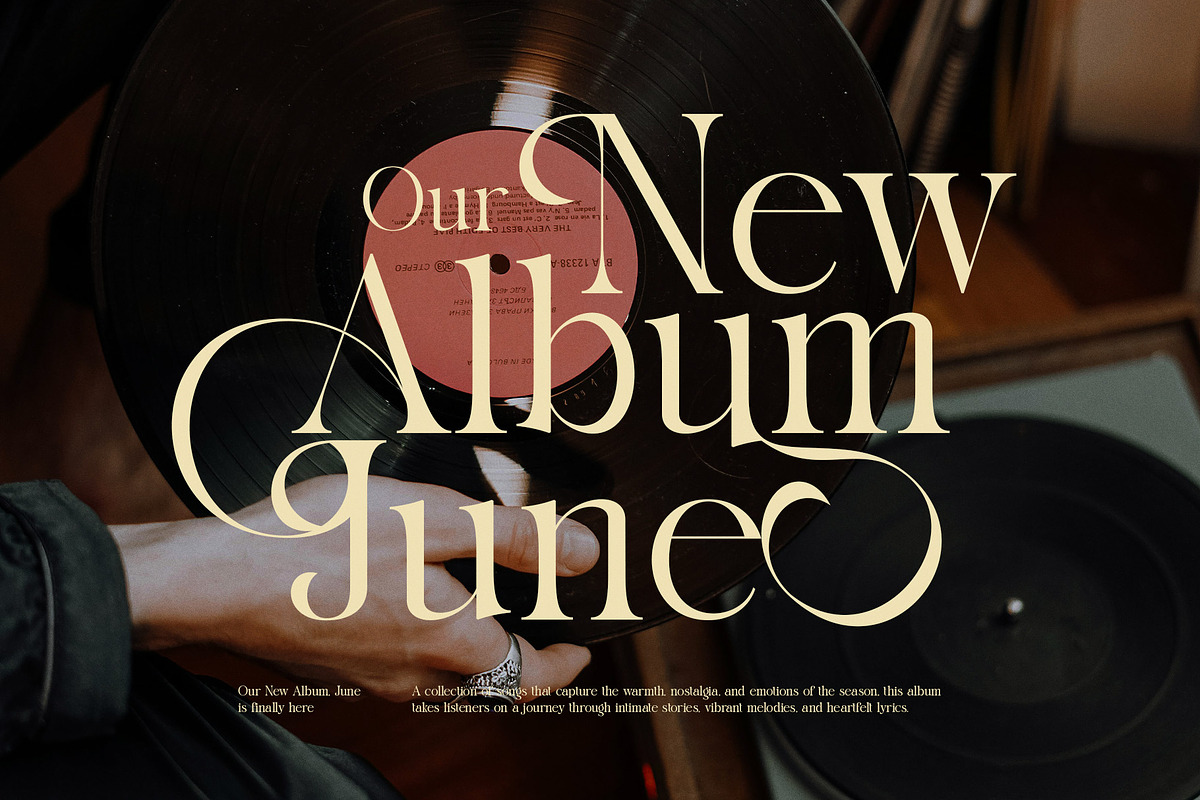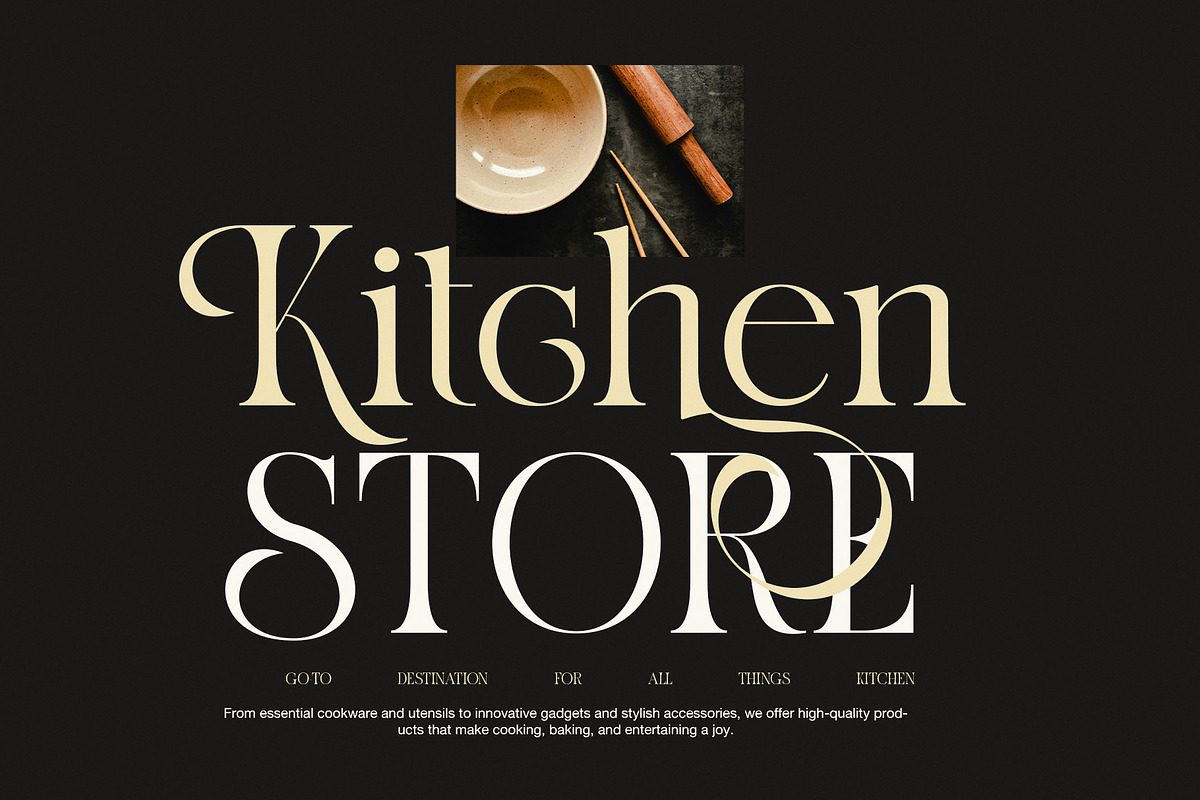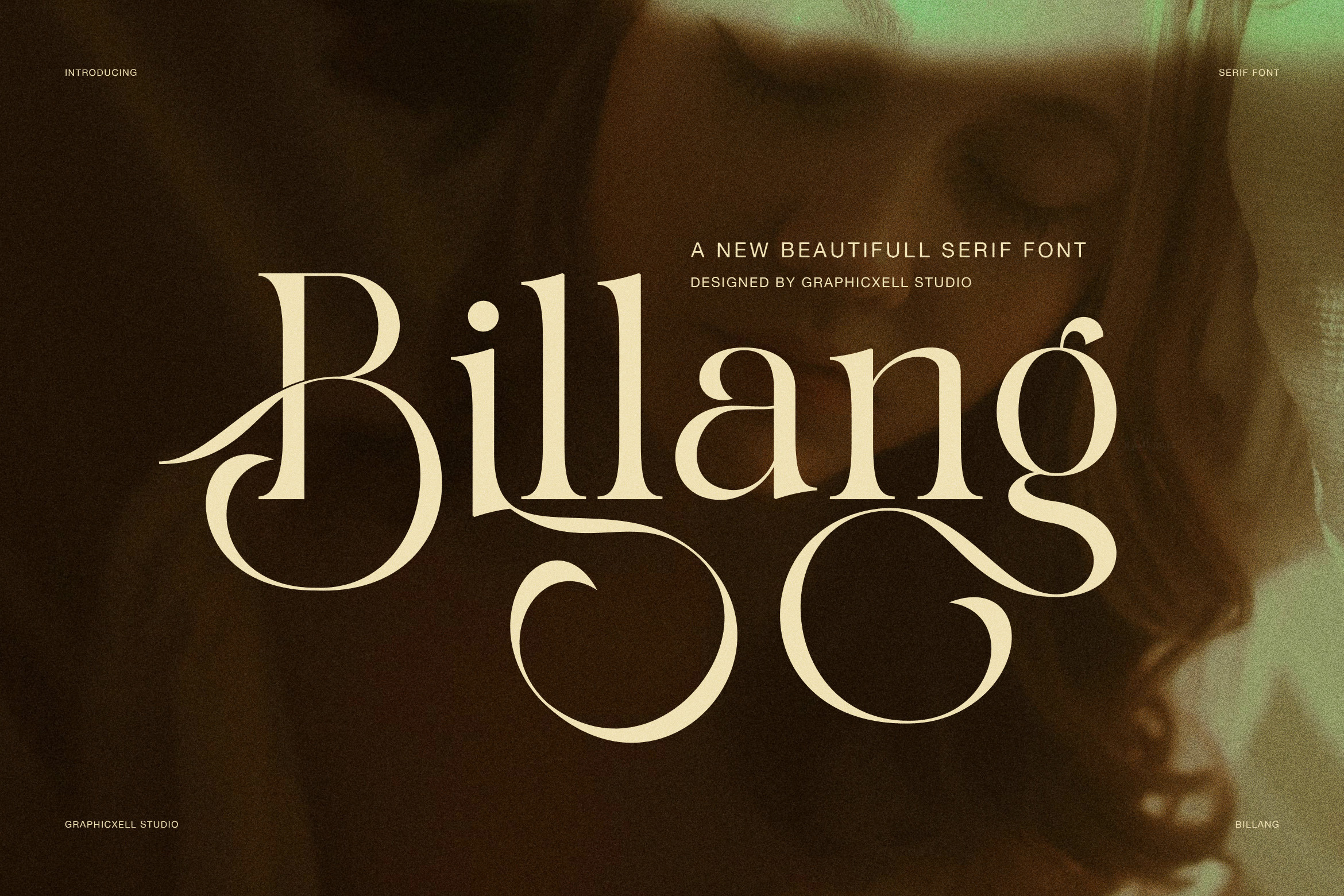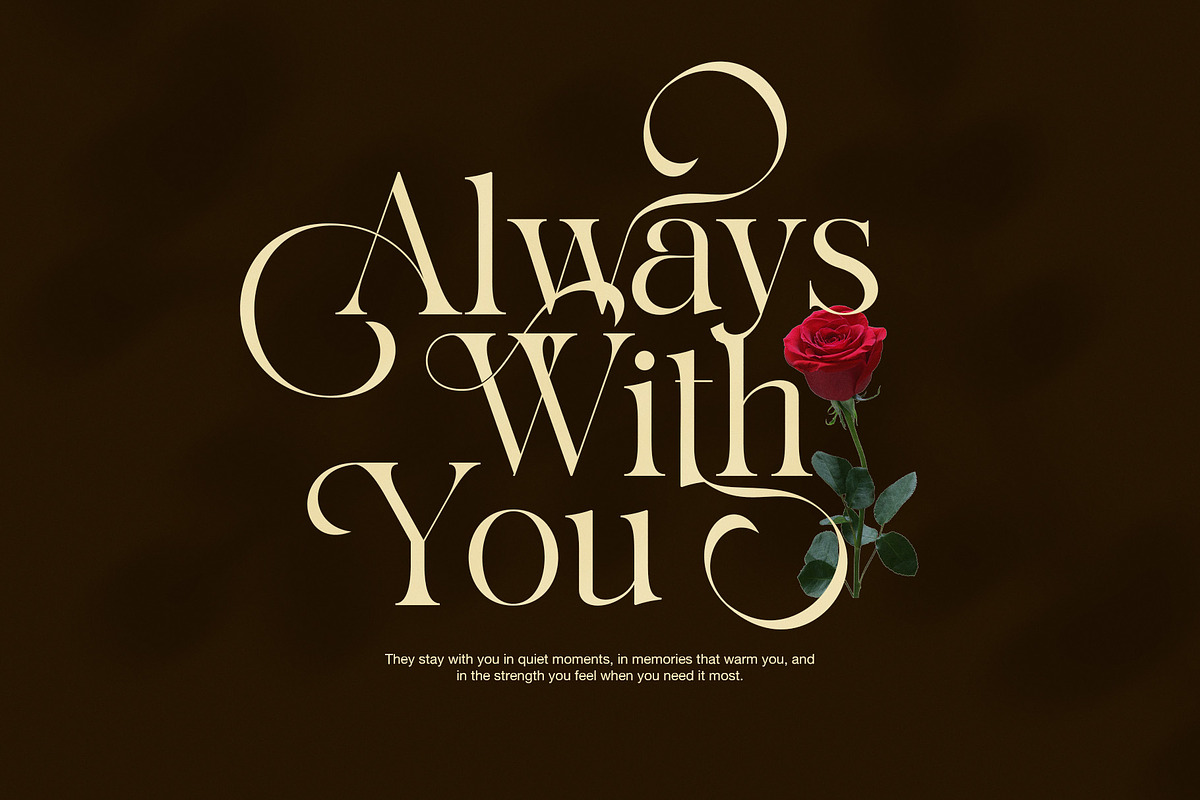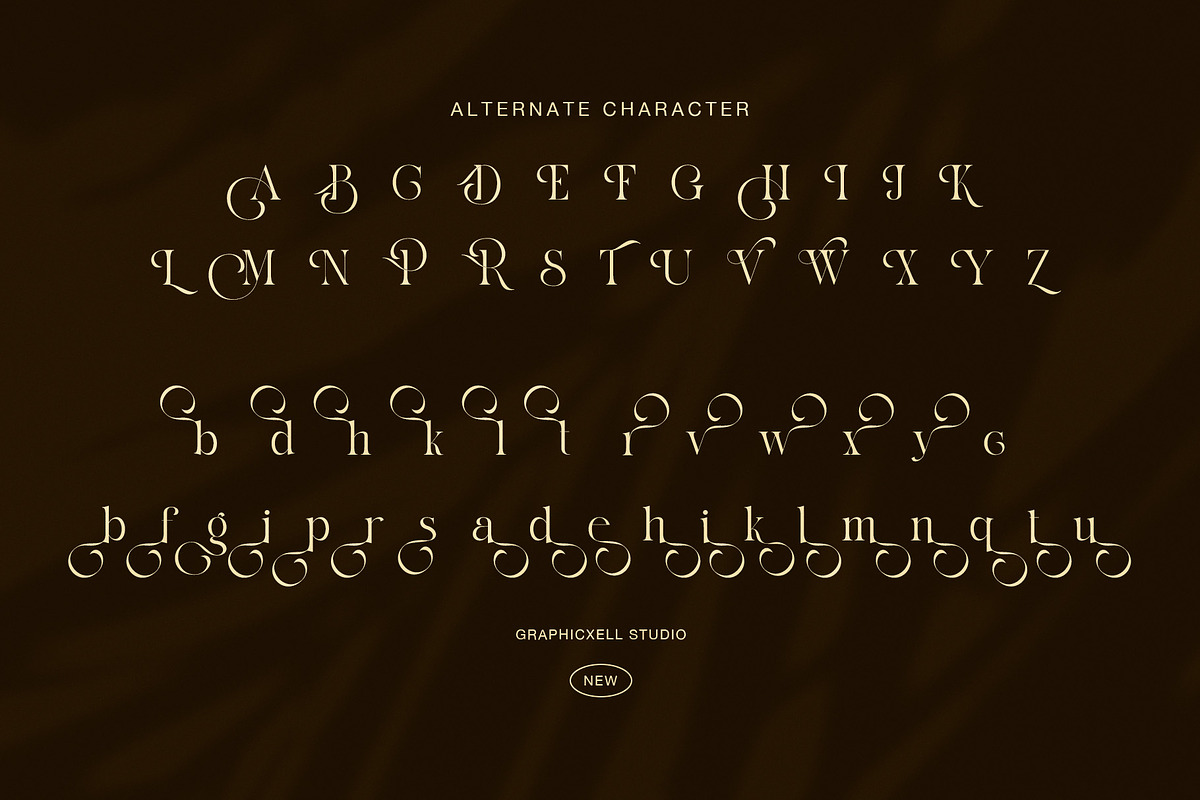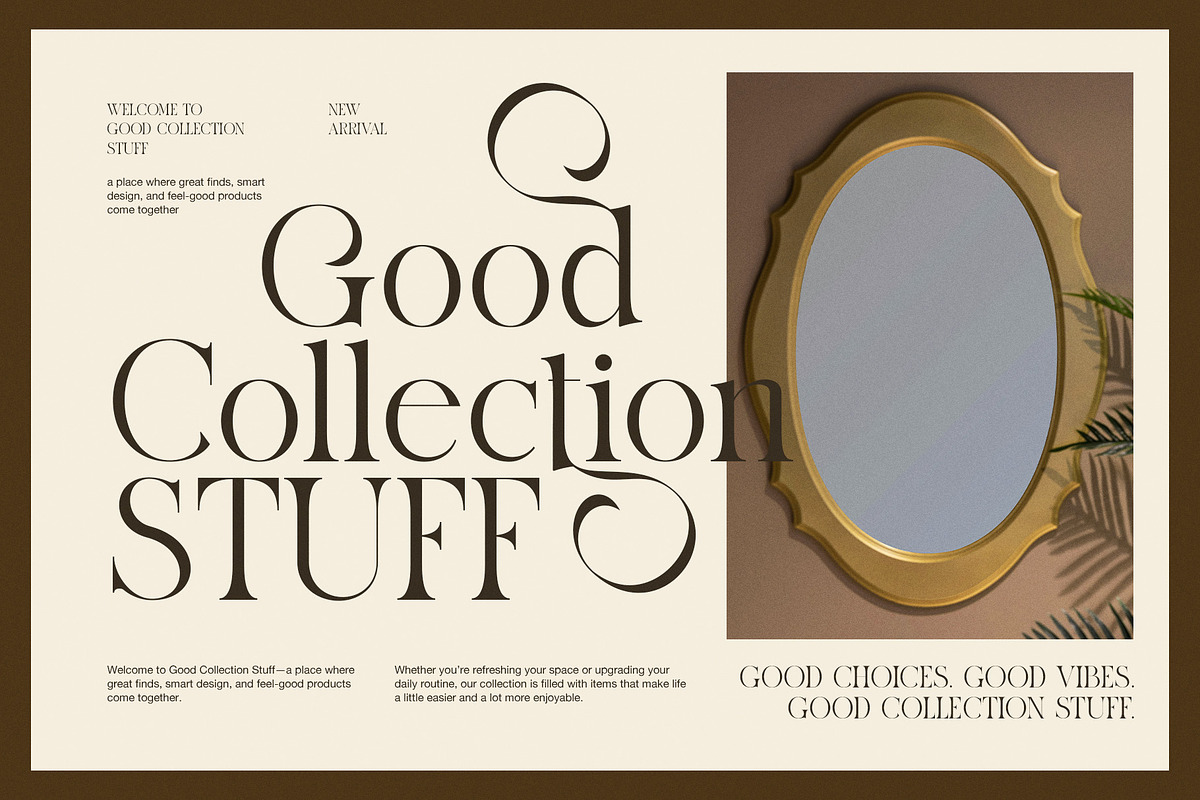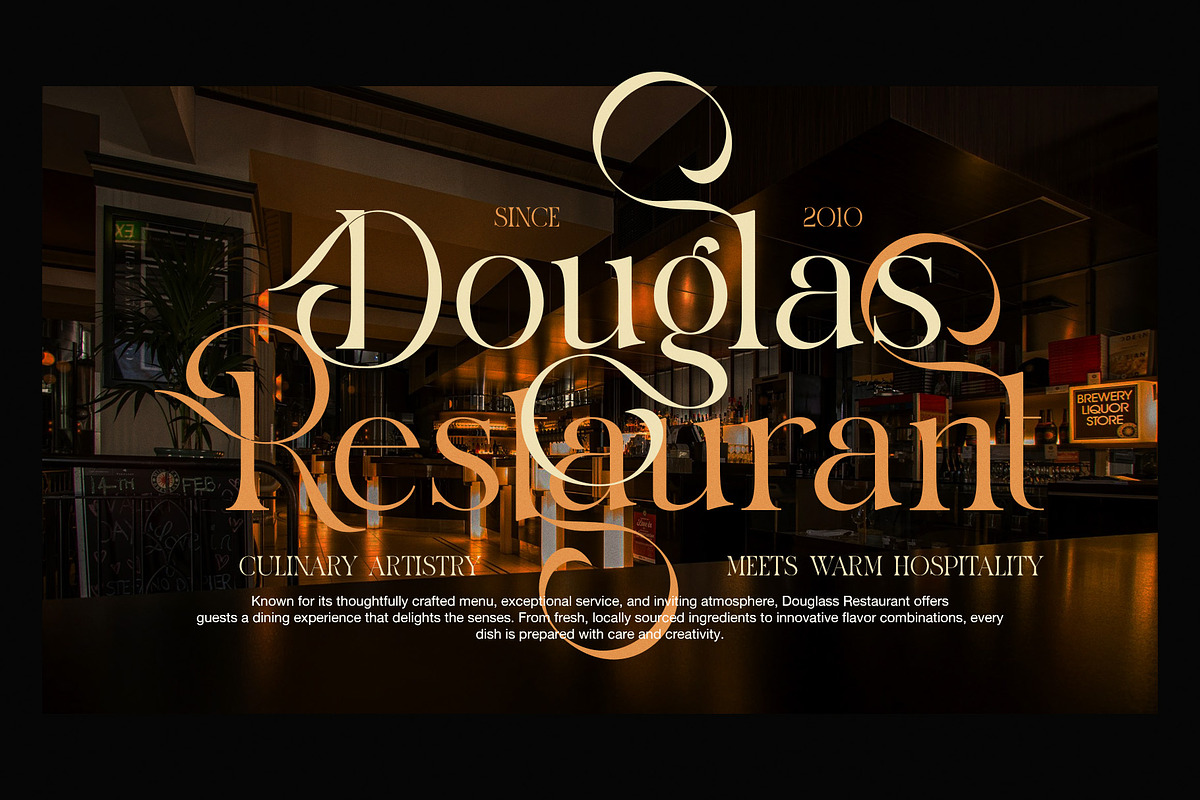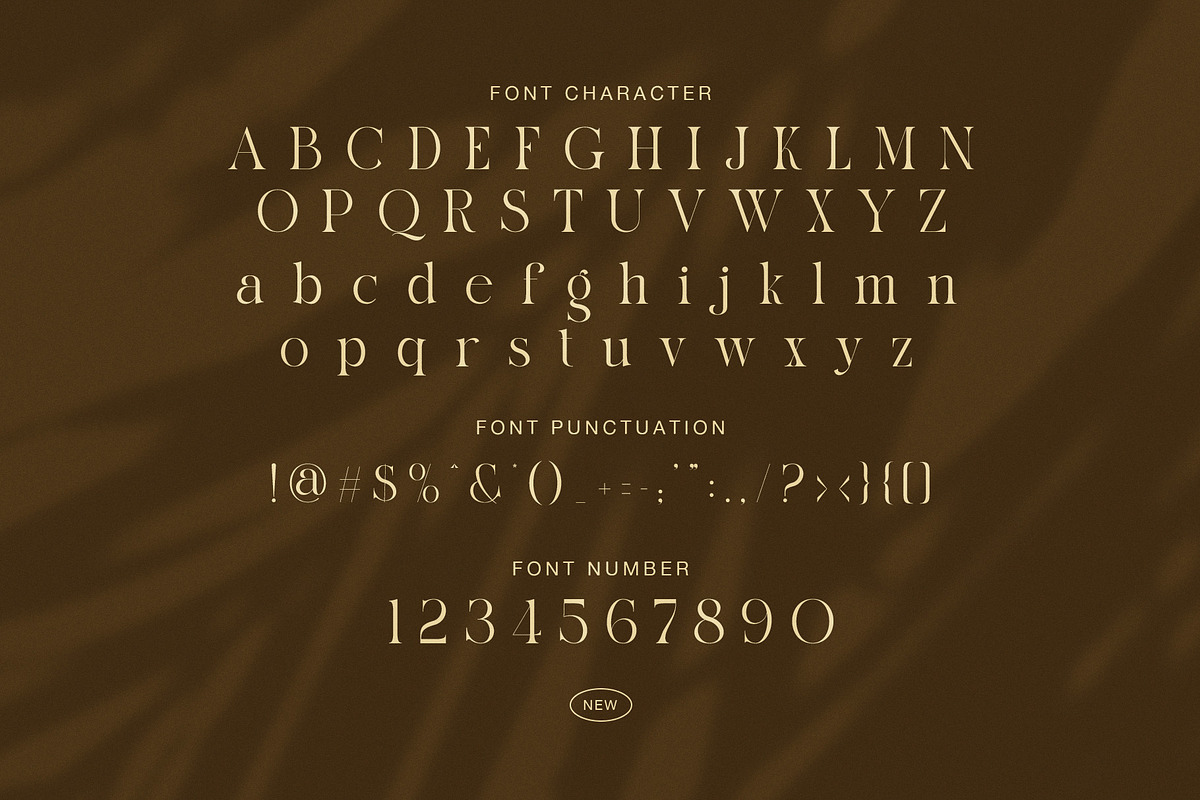
Billang – Elegant Serif Font
Elegant Design with Classic Character
Billang is an elegant classic serif font created for refined visual design. It blends smooth curves with strong serif shapes, which gives every letter a balanced and timeless look. Because of this harmony, the font feels both classic and modern. From the first glance, Billang communicates quality and style.
Decorative Details and Smooth Flow
This serif font features graceful strokes and flowing letterforms. As a result, words appear natural and pleasing on the page. In addition, subtle decorative swashes add charm without distracting from the message. These details make Billang ideal for expressive headlines and stylish titles.
Alternate Characters for Creative Freedom
Billang includes alternate characters that help designers shape unique typography. With these options, you can adjust the mood of your design while keeping a consistent look. At the same time, the default characters remain clean and readable. Therefore, the font works well for both display and supporting text.
Ideal Uses and Applications
Because of its elegant serif structure, Billang fits many creative needs. It performs especially well in projects that require a premium feel, such as:
Branding and logo design
Editorial layouts and magazine covers
Luxury packaging and product labels
Restaurant, café, and boutique visuals
Posters, headlines, and album artwork
Strong Contrast and Clear Readability
Billang features clear contrast between thick and thin strokes. This contrast improves clarity and visual impact. As a result, the font remains readable on light and dark backgrounds. Whether used for print or digital media, it maintains a strong presence.
Reliable Performance for Designers
To support smooth workflows, Billang is built with consistent spacing and clean outlines. Therefore, it works well in professional design software. Designers can focus on creativity instead of technical adjustments. In conclusion, Billang delivers elegance, flexibility, and reliability in one classic serif font.